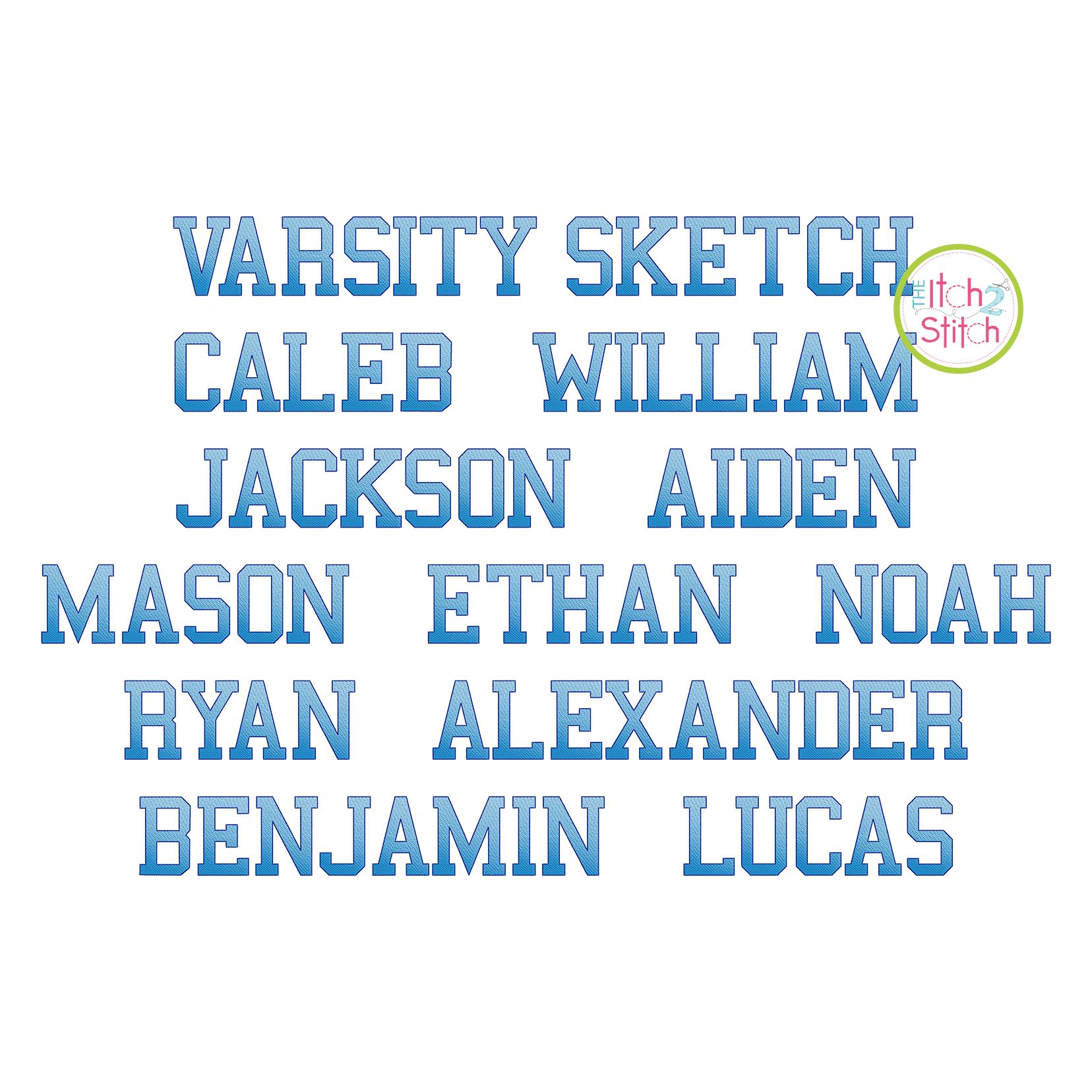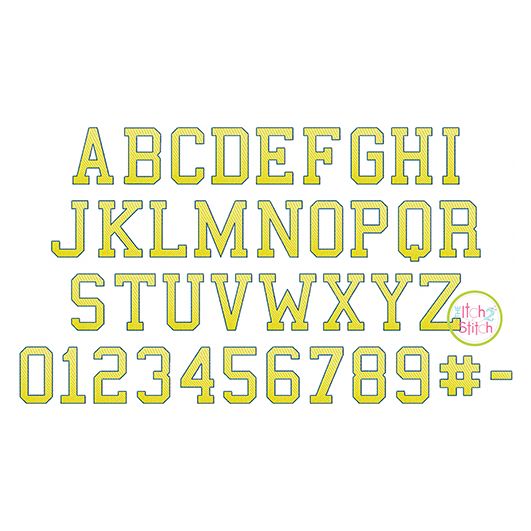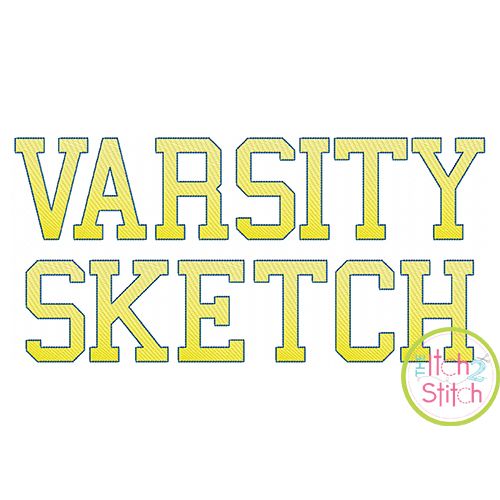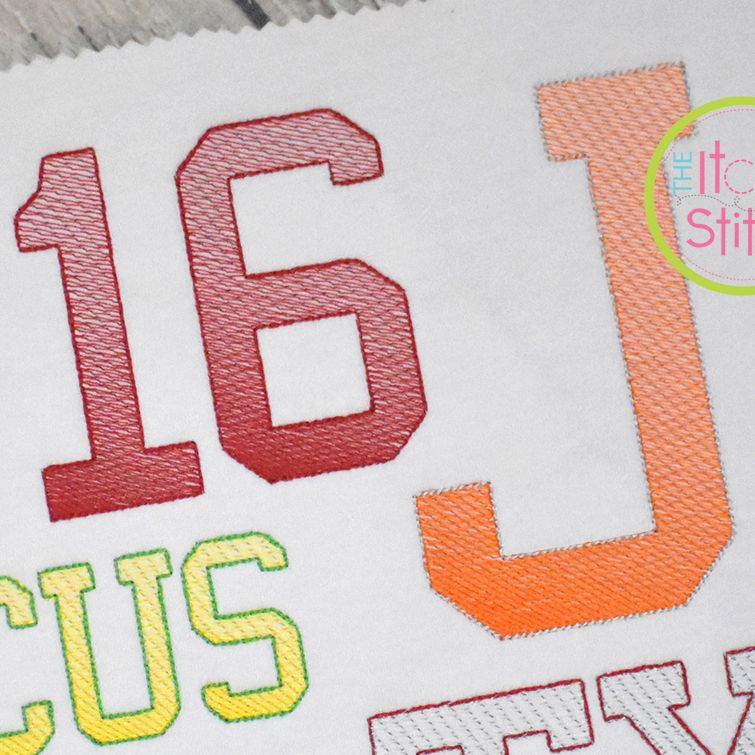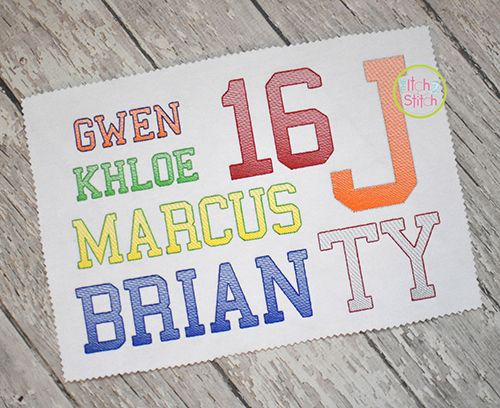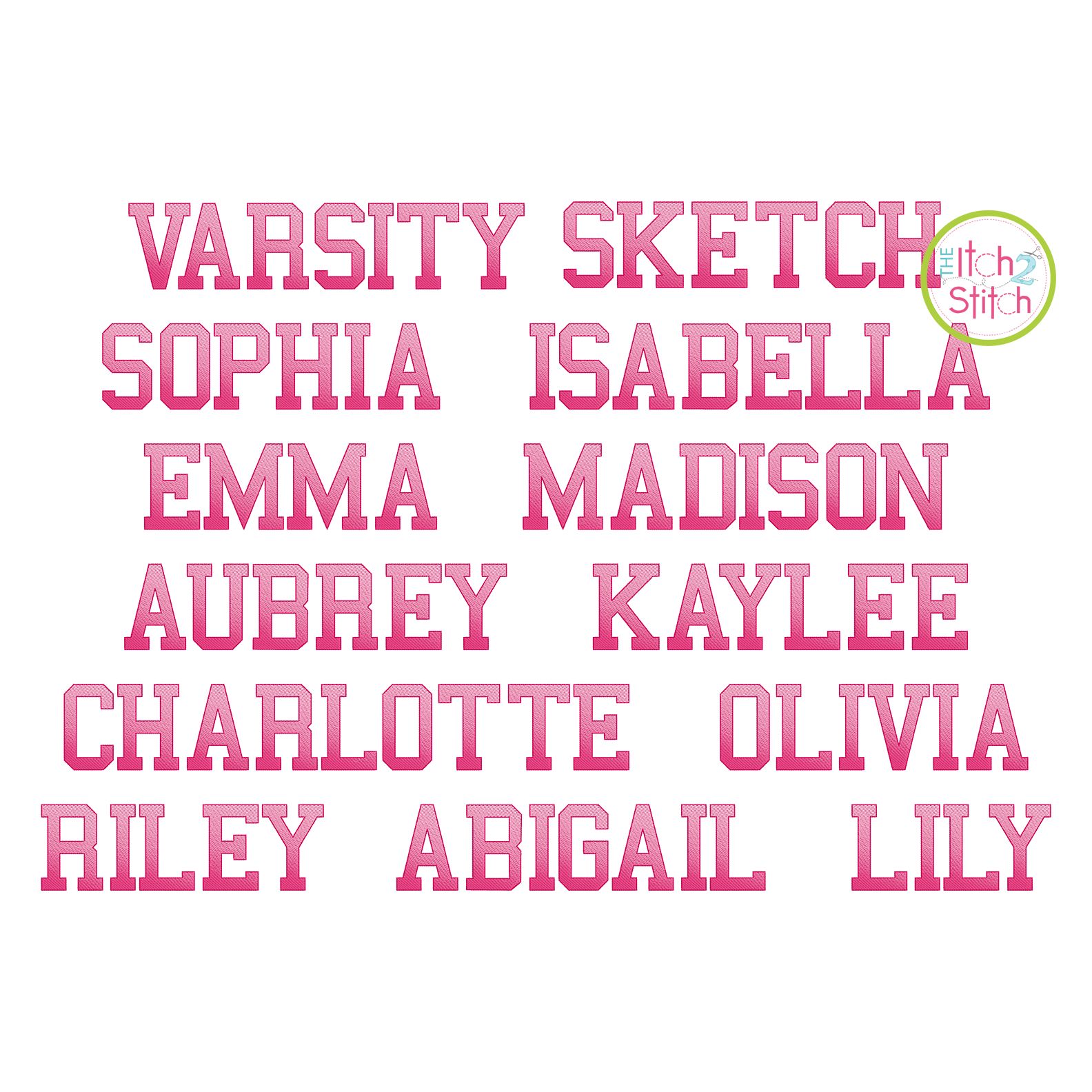
Varsity Sketch Embroidery Font
Please note this is not applique, nor is it a traditional satin or fill stitch font. The light and airy sketch fill pattern allows for a quick stitch out. The space between each line of stitching varies such that it is more dense at the bottom than the top of each letter to create the shading effect. The letter is finished off with a triple bean stitch outline which can be sewn in a different color. We do not recommend resizing this font in software.